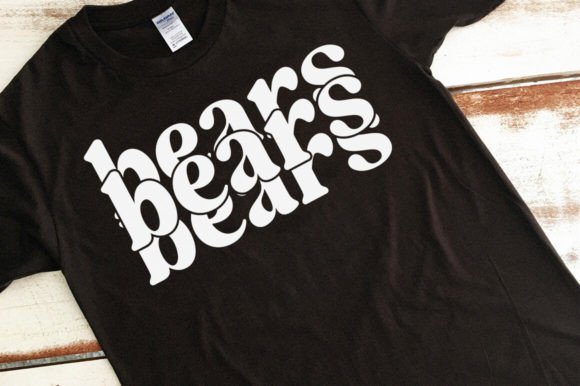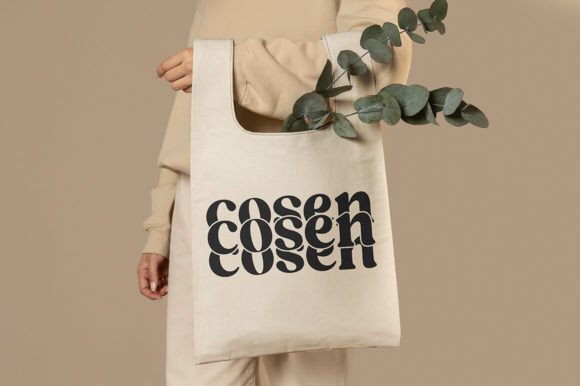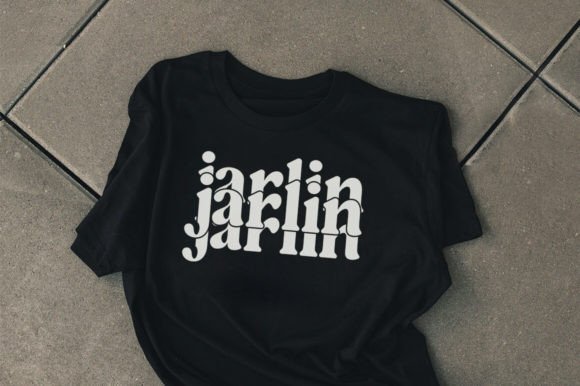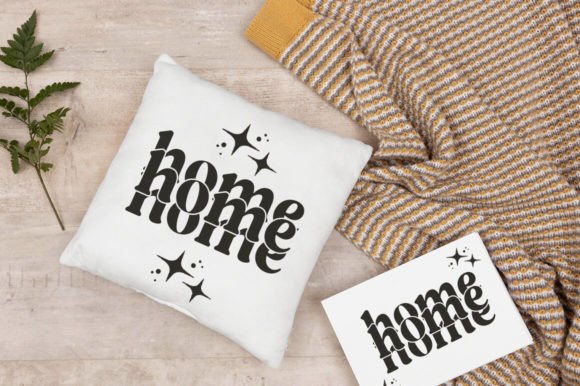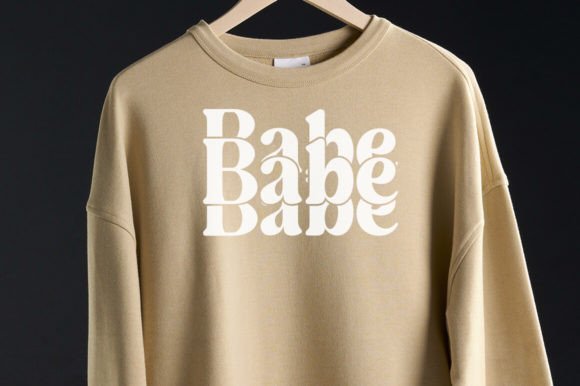
Casino Font: Elevate Your Designs with a Touch of Sophistication
In the world of design, typography plays a crucial role in conveying the tone and personality of a brand or project. When it comes to creating visually stunning materials, the right font can make all the difference. This is where Casino Font comes in – a stylish stacked font that can elevate your designs to new heights. In this article, we’ll explore the features and uses of Casino Font, and why it’s a must-have for designers and crafters.
What is Casino Font?
Casino Font is a unique and stylish stacked font that is perfect for adding a touch of sophistication to your designs. Its stacked design allows for a bold and eye-catching appearance, making it ideal for a wide range of applications. Whether you’re working on branding materials, social media graphics, quotes, invitations, business cards, or movie covers, Casino Font is the perfect choice.
Key Features of Casino Font
- Stacked Design: Casino Font features a stacked design that allows for a bold and eye-catching appearance.
- Versatility: This font can be used for various types of design needs, including branding materials, social media graphics, quotes, invitations, business cards, movie covers, and more.
- Elegant and Sophisticated: Casino Font has an elegant and sophisticated feel that adds a touch of luxury to your designs.
- Easy to Read: Despite its bold design, Casino Font is easy to read, making it perfect for use in a variety of contexts.
Uses of Casino Font
Casino Font is an incredibly versatile font that can be used in a wide range of applications. Here are some of the most popular uses of this stylish font:
- Branding Materials: Use Casino Font to create stunning logos, business cards, and letterheads that reflect your brand’s personality.
- Social Media Graphics: Create eye-catching social media graphics, including Facebook posts, Instagram stories, and Twitter headers, using Casino Font.
- Quotes and Inspirational Graphics: Add a touch of elegance to your quotes and inspirational graphics with Casino Font.
- Invitations: Use Casino Font to create stylish and sophisticated invitations for weddings, parties, and other events.
- Movie Covers: Create stunning movie covers and posters using Casino Font.
Why Choose Casino Font?
With so many fonts available, why choose Casino Font? Here are just a few reasons why this font stands out:
- Unique Design: Casino Font features a unique stacked design that sets it apart from other fonts.
- High-Quality: This font is designed with high-quality and precision, ensuring that it looks great in any context.
- Versatile: This font can be used in a wide range of applications, making it a great addition to any design library.